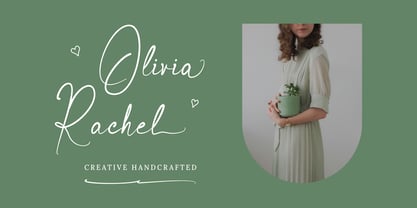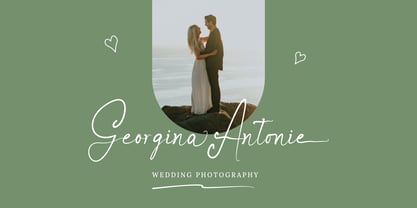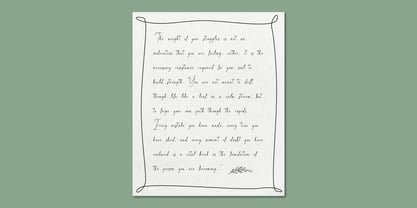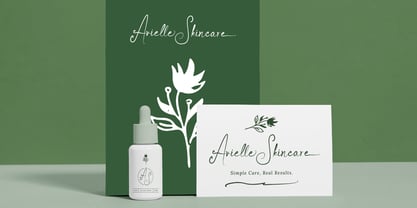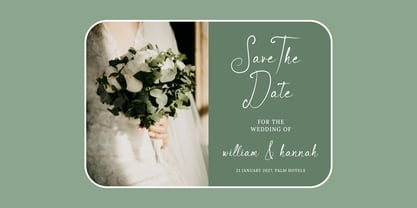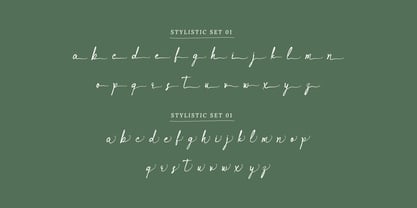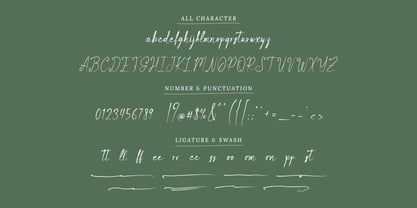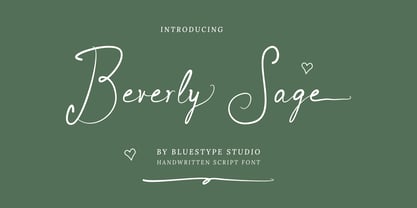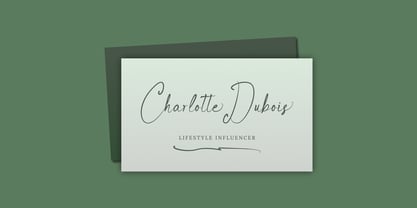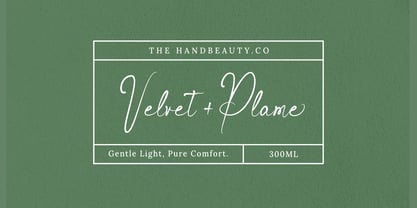
Beverly Sage
von Bluestype Studio
Die Schriftfamilie Beverly Sage wurde von Jefri Dwi Alfatah entworfen und von Bluestype Studio veröffentlicht. Beverly Sage enthält 1 Stile. Mehr über diese Familie
Introducing Beverly Sage - Handwritten Script Font Bring a touch of organic charm to your design projects with Beverly Sage, a natural, whimsical handwritten font crafted from authentic, real-life hand strokes. Each character captures the imperfect beauty of genuine pen-on-paper movement, making it the perfect choice for projects that require a personal, approachable, and playful aesthetic. Ideal for branding, logo, invitations, signature, quotes, greeting cards, and any project that demands a sophisticated handwritten feel, Stand out from the crowd with a font that feels uniquely yours. Beverly Sage adds a warm and human touch to your work. Its fluid, casual style ensures that your designs feel inviting, creative, and uniquely yours.